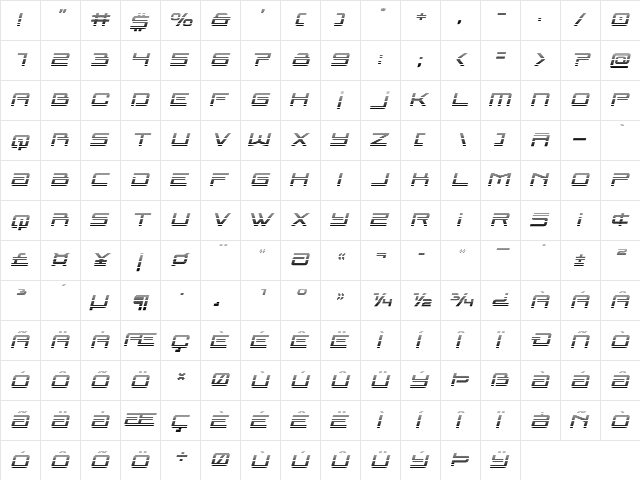
Blade Singer Gradient Italic Regular
Design Context for Blade Singer Gradient Italic Typeface
Blade Singer Gradient Italic takes a measured approach to typography — its balanced proportions and neutral character make it a reliable workhorse for both digital and print work. The dynamic lean of this cut emphasises speed and emphasis in any layout.
Pro Tip: Use Blade Singer Gradient Italic for emphasis, pull quotes, and subheadings where its slanted energy can add rhythm to the layout.